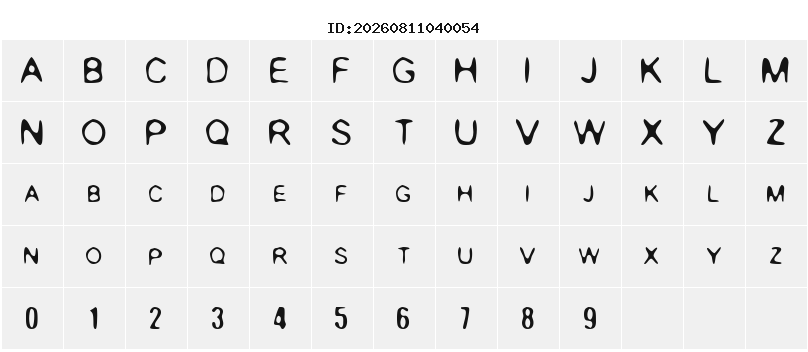
Rounded Genius Preview
• Font Name: Rounded Genius
• Full Font Name: Rounded Genius
About Rounded Genius.ttf
Rounded Genius.ttf is a modern, elegant sans-serif font designed for ultimate readability and visual harmony. Perfect for branding, headlines, web design, and print materials.